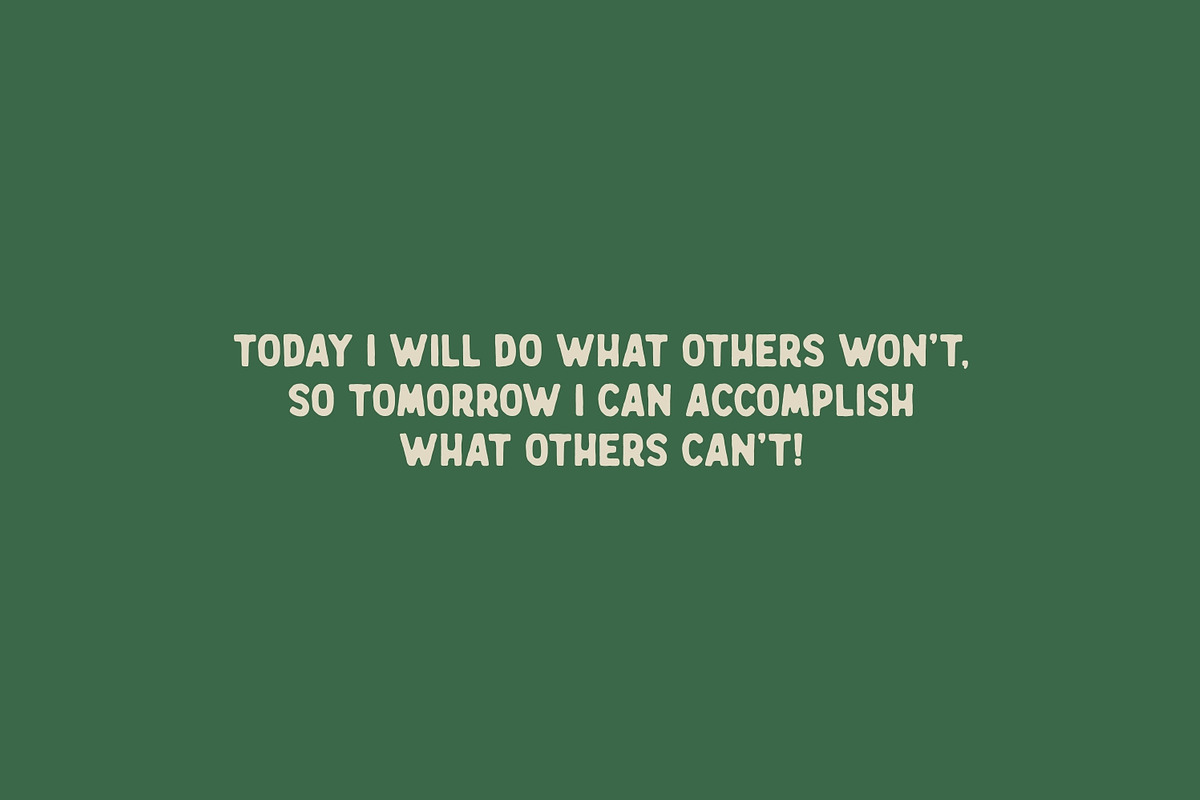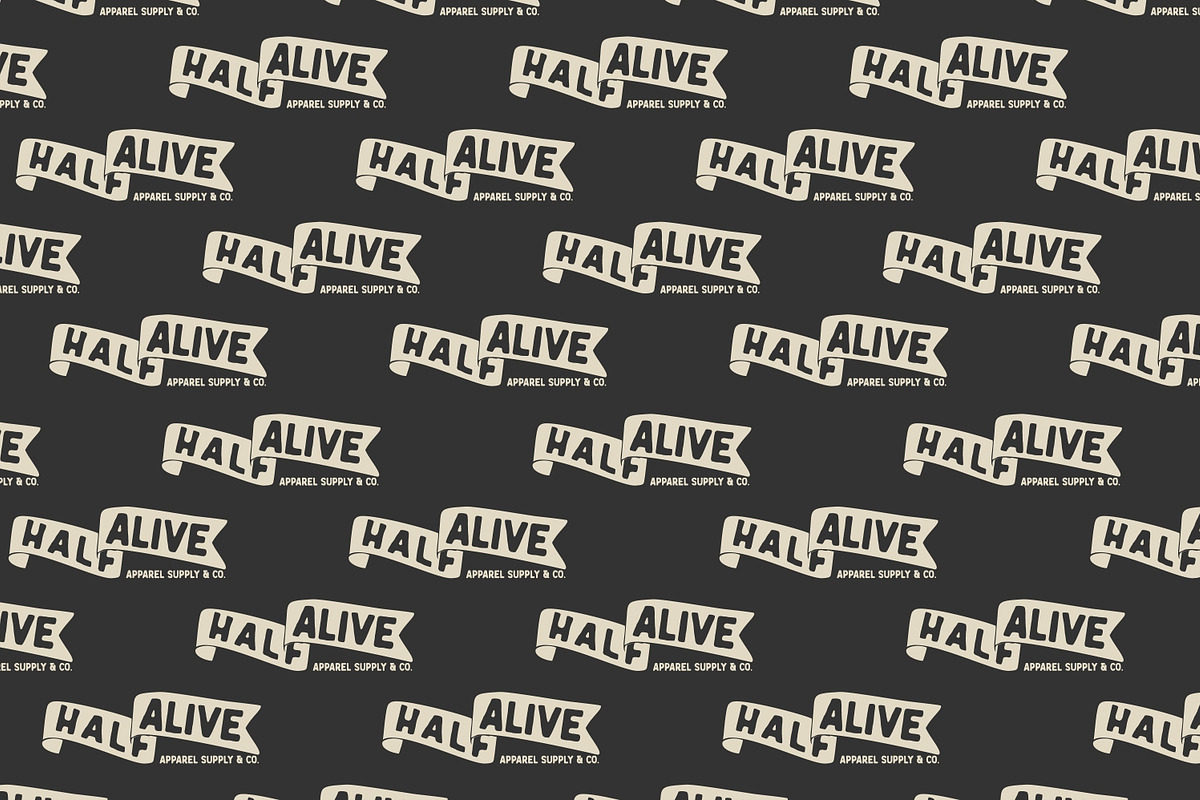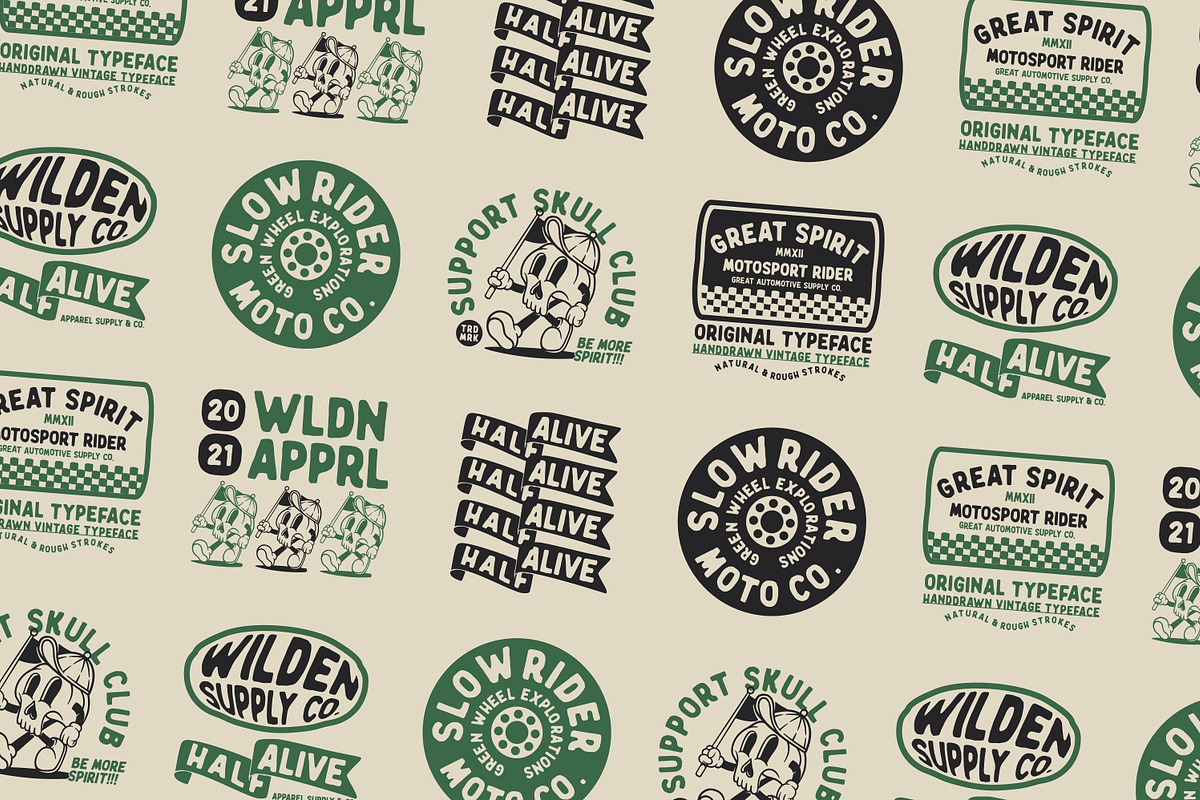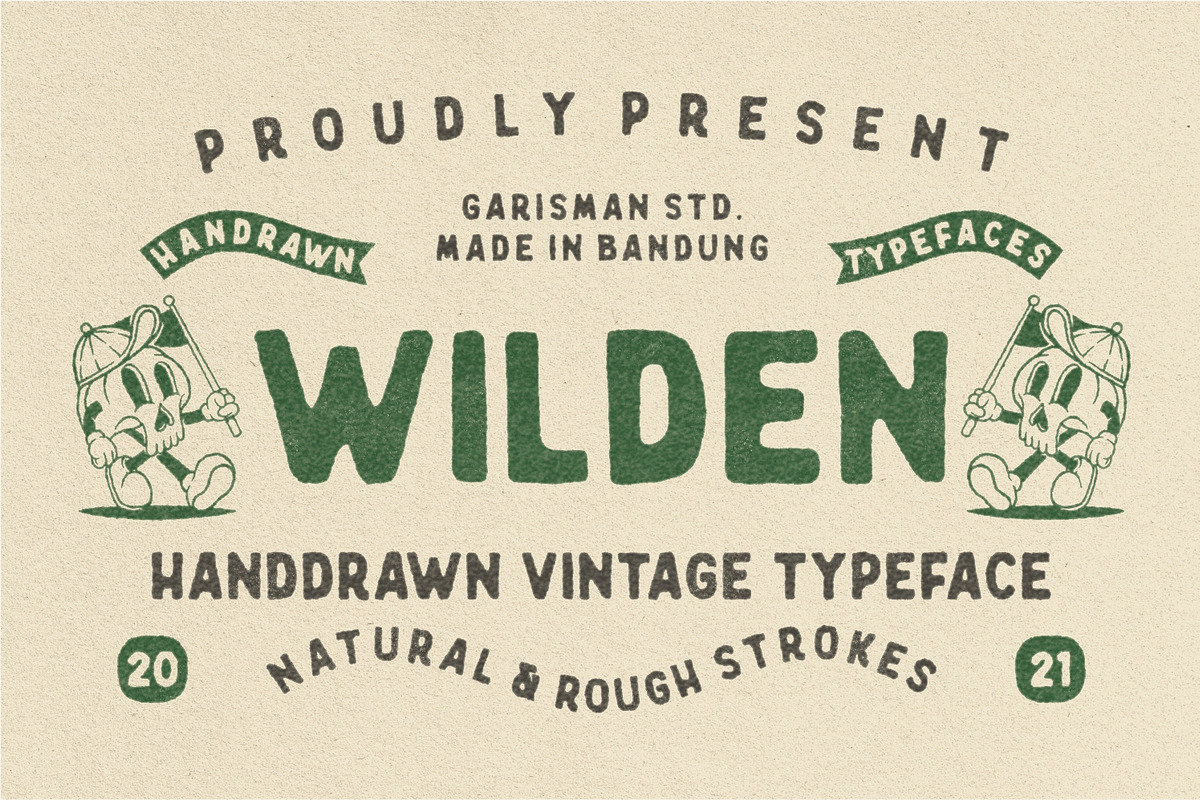
Wilden - Handdrawn Vintage Typeface
Wilden was born from an inspiring vintage display. This font gives a feel of vintage, classic, old, and based on handmade. Already PUA Encoded and I think this font is perfect for people looking for a vintage aesthetic or logo type. Suitable for any graphic designs such as branding materials, t-shirts, print, business cards, logos, posters, t-shirts, photography, quotes .etc.
- All glyphs with Caps styles
- Numerals & Punctuations
- Multilingual characters (support for 14 languages): Afrikaans Albanian Danish Dutch English Estonian Finnish French Italian Norwegian Portuguese Spanish Swedish Zulu